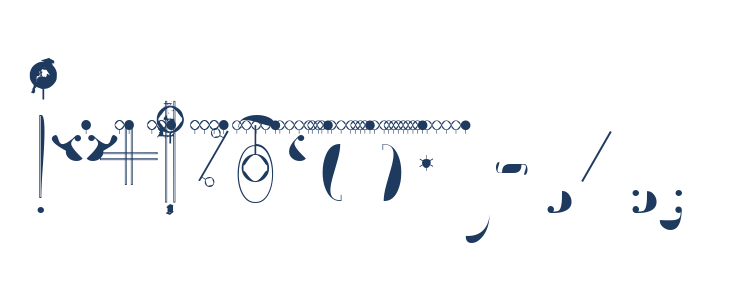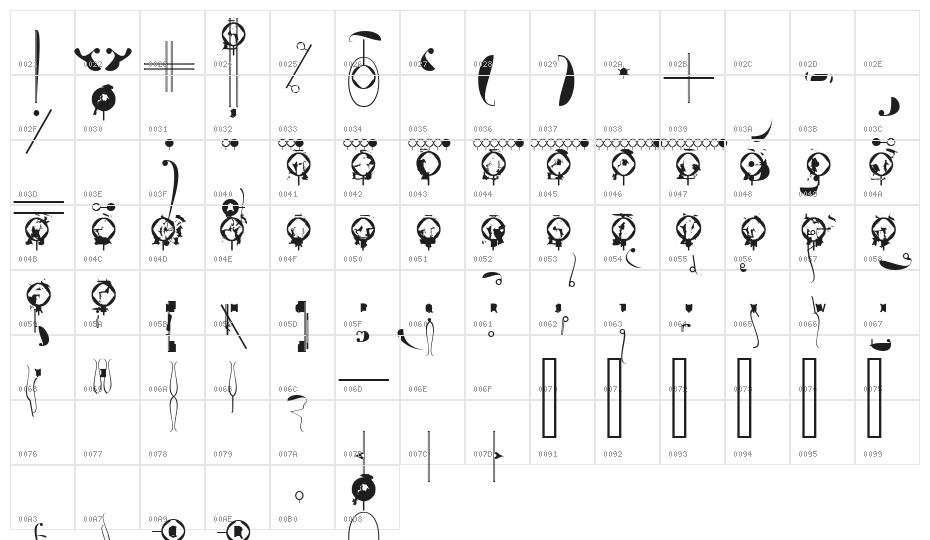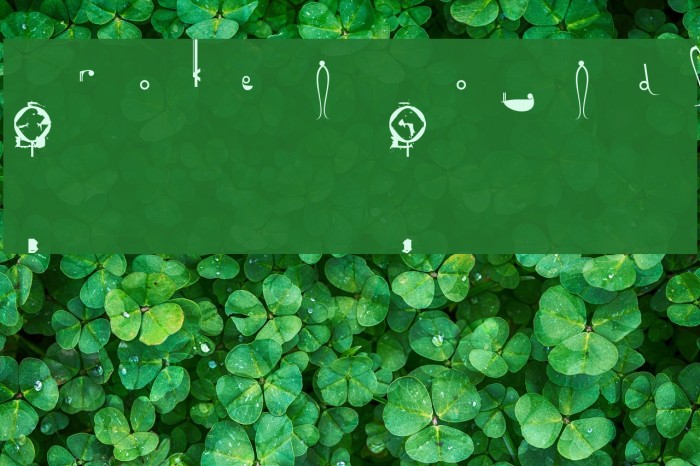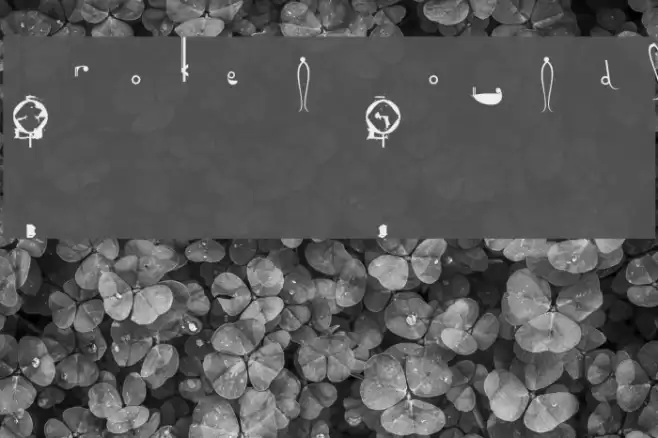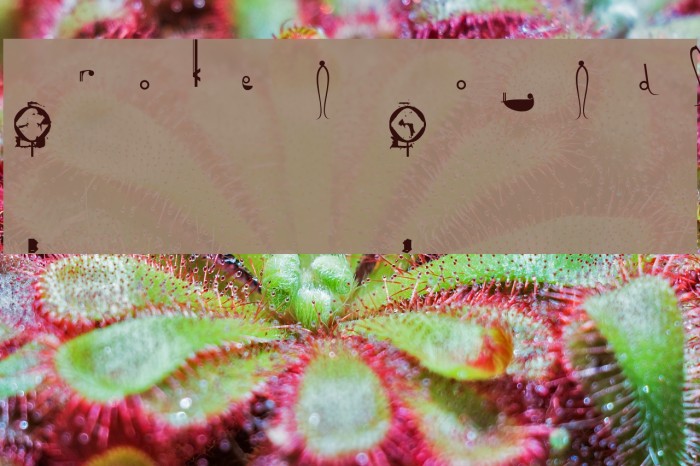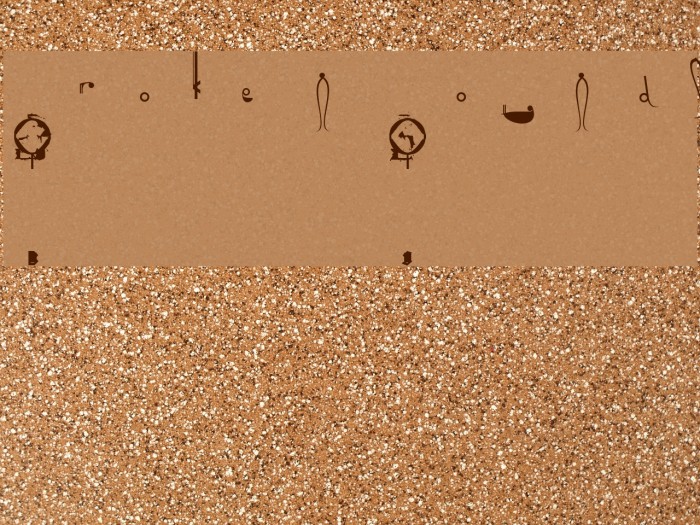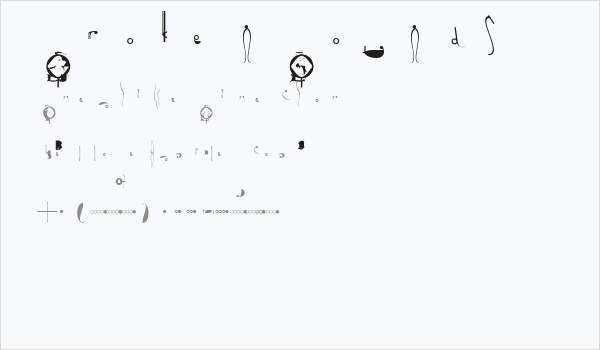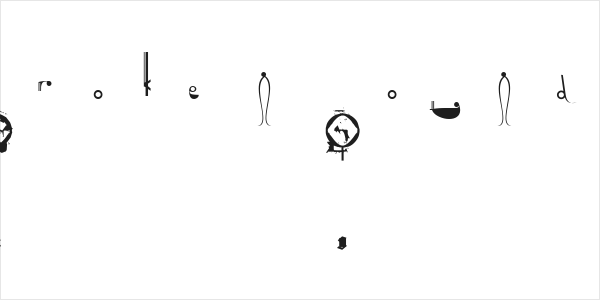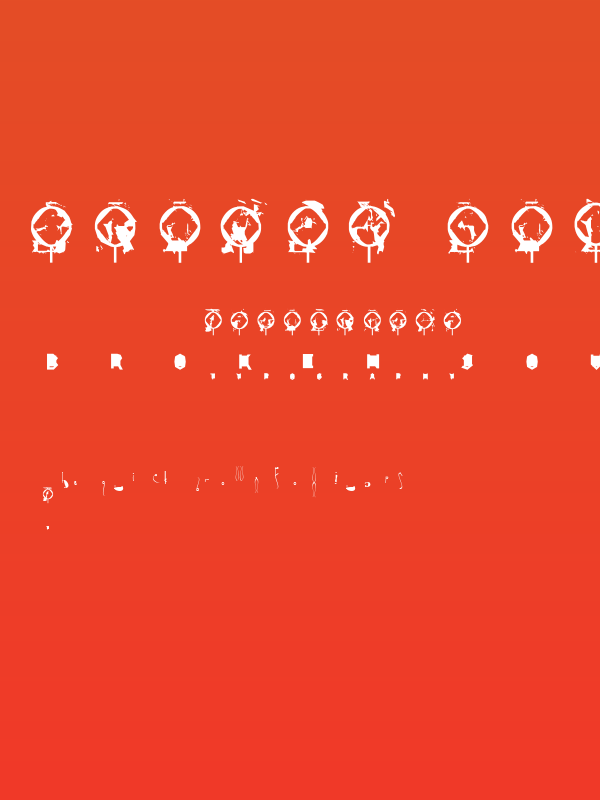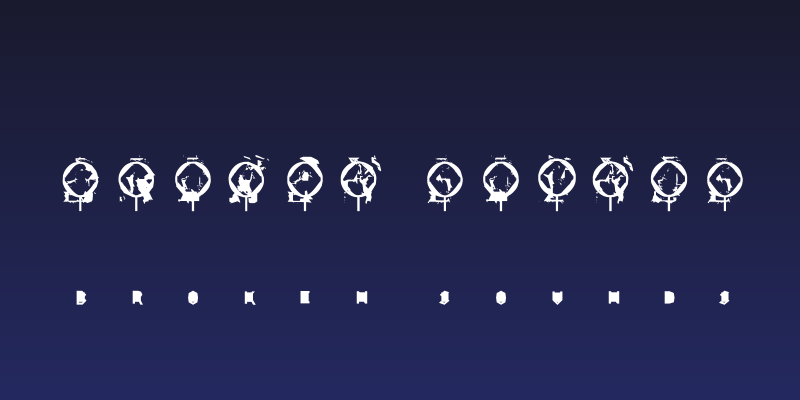
Broken Sounds Font
Broken Sounds Description
This font exhibits a highly abstract and artistic style, characterized by its unique and unconventional letterforms. Each character is a complex composition of geometric shapes, lines, and curves, creating a visually striking and avant-garde appearance. The uppercase letters are particularly intricate, with each character resembling a piece of modern art. The lowercase letters maintain a more fluid and organic form, yet still retain the abstract nature of the font. The numerals and special characters continue this theme, offering a cohesive and imaginative set. This font is not designed for readability but rather for artistic expression, making it a standout choice for creative projects.
| Use Case | Logos, Art projects, Experimental design |
| Proposed Projects | Ideal for art installations, experimental design projects, album covers, and avant-garde branding. |